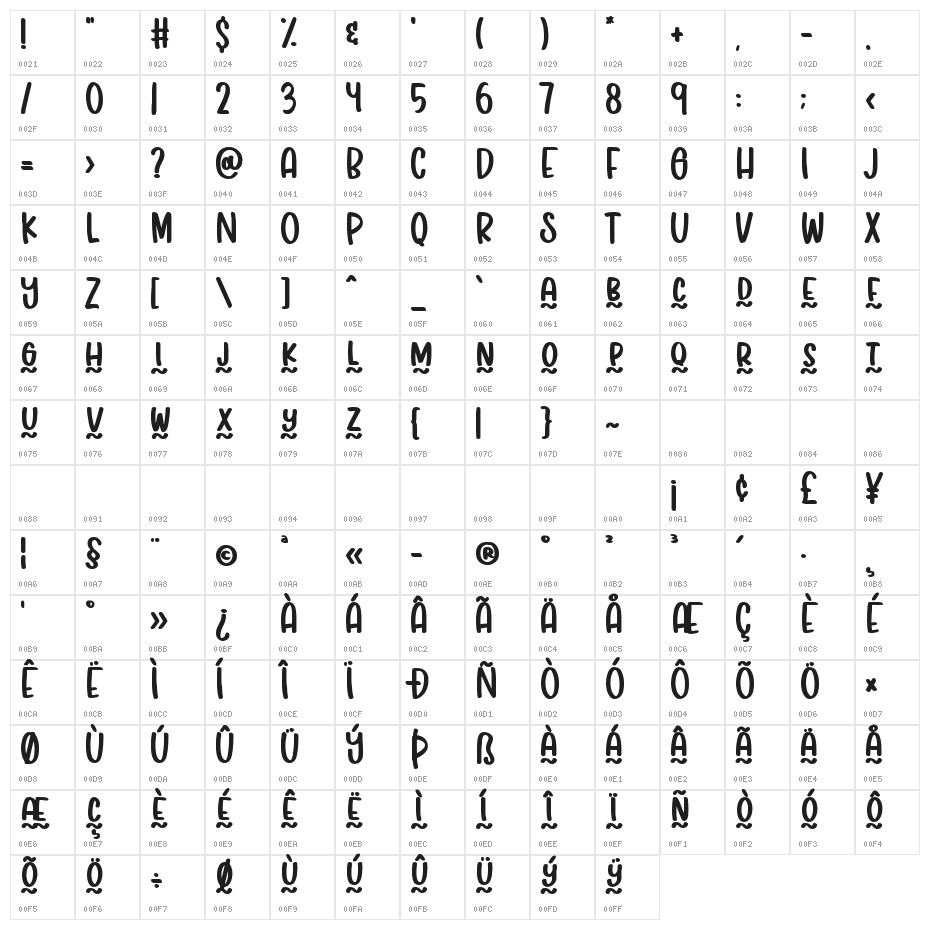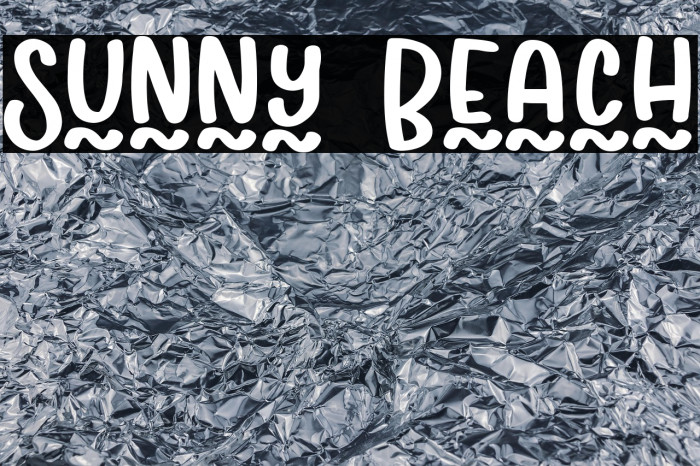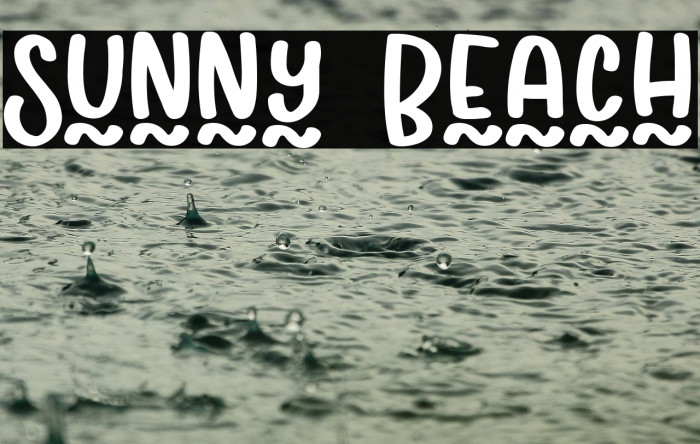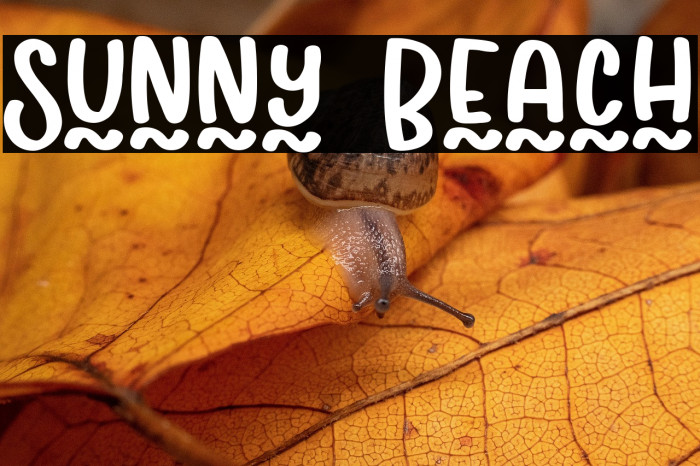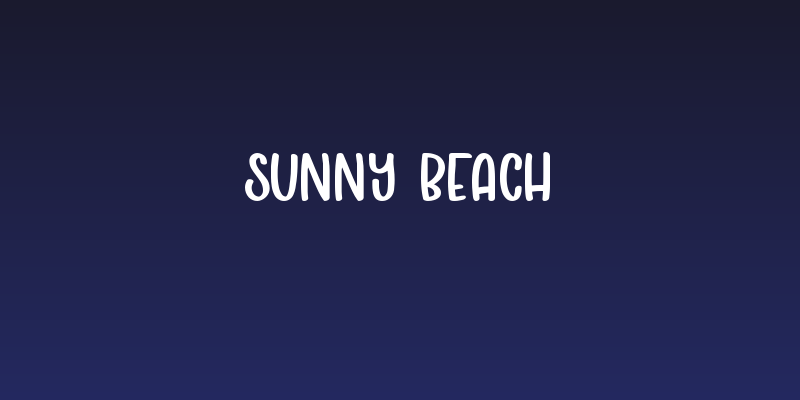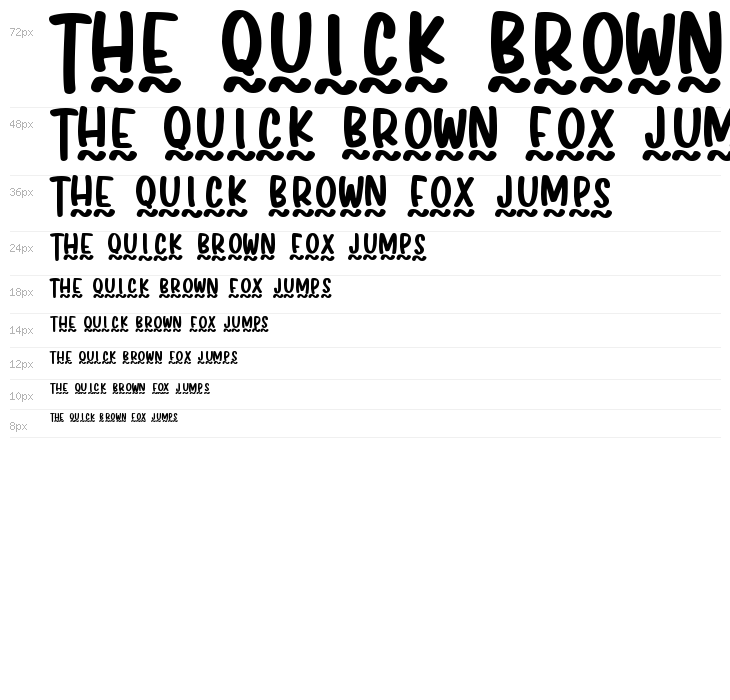
Sunny Beach Font
Sunny Beach Description
A playful, bold handwritten font with rounded edges and a casual style.
| Overall Style | Casual and playful |
| Proposed Projects | Greeting cards, children's books, playful branding. |